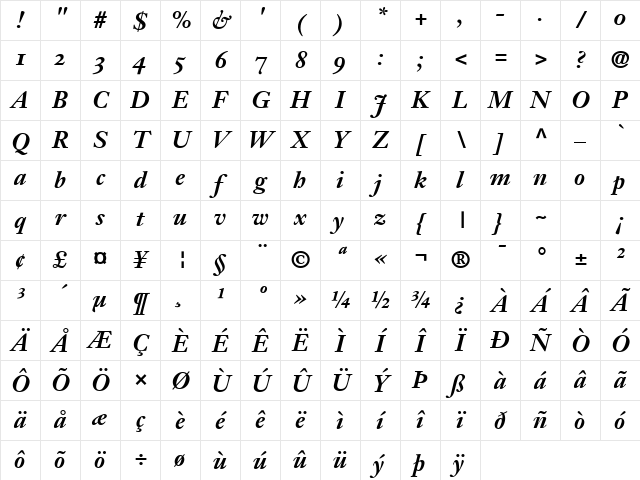
Janson OldStyle SSi Bold
Janson OldStyle SSi Family
Janson OldStyle SSi Bold
Design Context for Janson OldStyle SSi
Janson OldStyle SSi carries the refined structure of traditional serif typography, with bracketed terminals and considered proportions that communicate credibility and craft. Its bold stroke weight gives it real presence on the page.